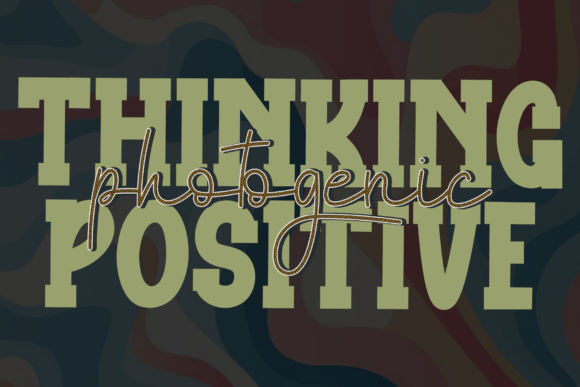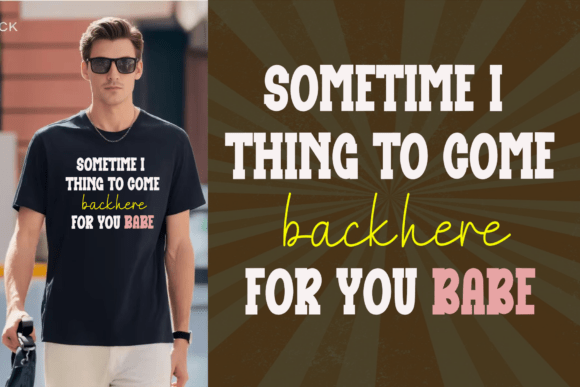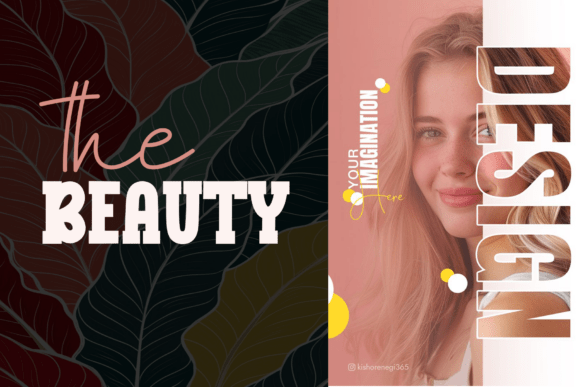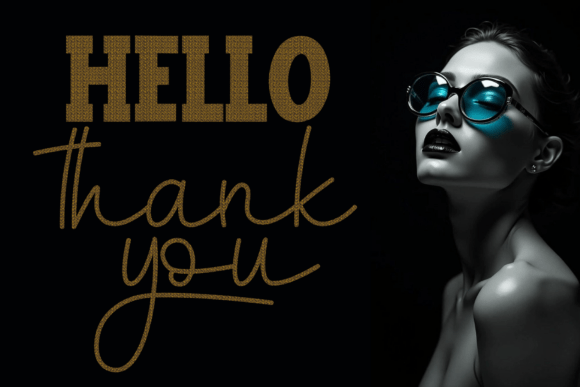
Introduction to Perfect Sunshine Font
Imagine strolling through a sunny day, feeling the warmth on your skin and the joy in your heart. That’s exactly what the Perfect Sunshine Font evokes – a sense of happiness and approachability. As a designer, you’re always on the lookout for the perfect font to elevate your creative project, and we’re excited to introduce you to this stunning display font.
Perfect Sunshine Font is a treasure trove of simplicity and charm, making it an ideal design resource for any project. With its clean lines, balanced letterforms, and subtle rounded edges, it adds a warm and inviting touch to any design. Whether you’re working on a branding project, packaging design, or digital content, this font is sure to deliver clarity and charm in equal measure.
Key Features of Perfect Sunshine Font
- Transparent Background: The Perfect Sunshine Font comes with a transparent background, making it ideal for creative projects that require a clean and minimalist design.
- High-Quality Design Resource: This font is designed to provide a high-quality design resource for your projects, with clear and crisp characters that are perfect for print and digital use.
- Unique Characteristics: The Perfect Sunshine Font features a unique and modern design, with a subtle gradient effect that gives it a warm and inviting feel.
- Perfect for Creative Projects: The font is designed to be versatile and easy to use, making it perfect for a wide range of creative projects, from logos and branding to digital art and design.
Honest Review: Perfect Sunshine Font
As a designer, I’m always on the lookout for high-quality design resources that can elevate my creative projects. The Perfect Sunshine Font is a beautiful, elegant script font that caught my eye.
- ✨ Beautiful, flowing lines that evoke a sense of sophistication and elegance.
- ✨ Suitable for a wide range of creative projects, from wedding invitations to branding materials.
- ✨ Can be used with a transparent background, giving it a clean and modern look.
- ⚠️ Limited font styles available, which may not be ideal for designers who prefer a wider range of options.
- ⚠️ May not be suitable for projects that require a more bold or playful font style.
Overall, I’m impressed with the Perfect Sunshine Font. Its elegant design and free download make it an excellent addition to any designer’s toolkit. While it may have some limitations, I think it’s a great resource for designers who want to add a touch of sophistication to their creative projects.